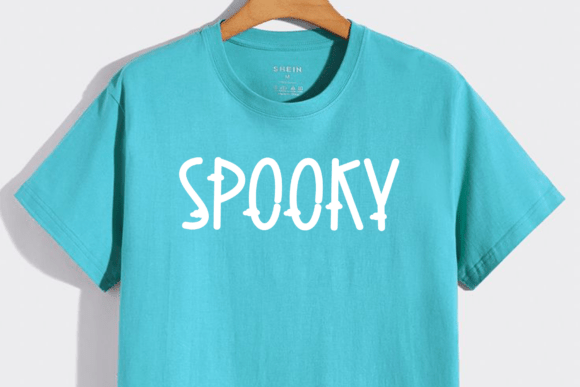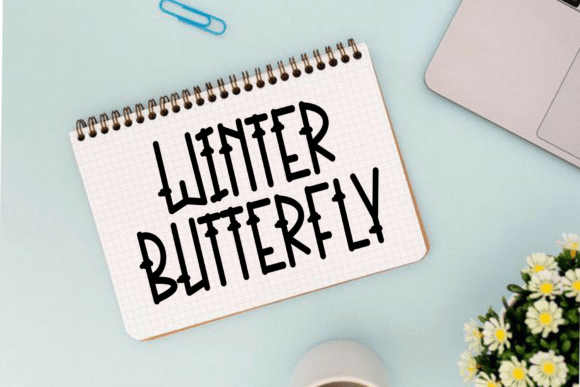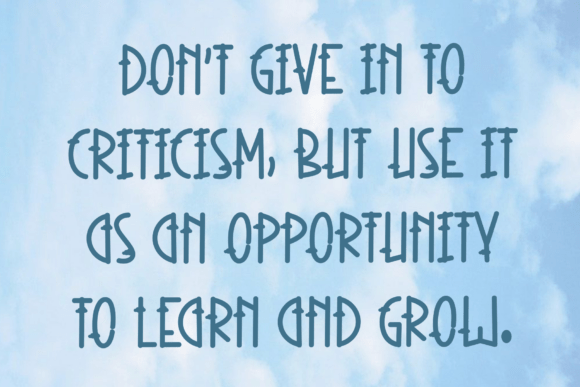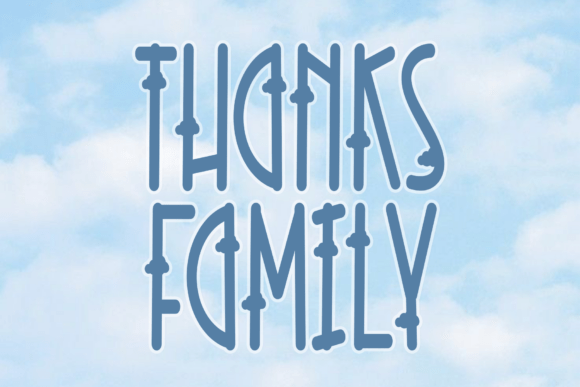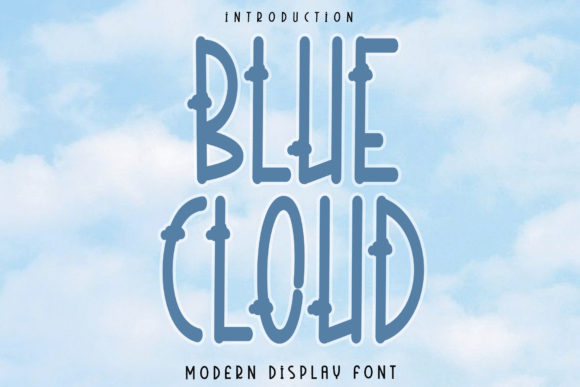
Introducing Blue Cloud Font: Elevate Your Design with a Breathtaking Typeface
In the realm of modern handwritten fonts, Blue Cloud Font emerges as a unique and professional addition, crafted to infuse designs with a sense of clarity and crisp elegance. This stunning typeface is characterized by its tall, thin strokes and a subtle, airy slant, which collectively contribute to a refined aesthetic reminiscent of a refreshing mountain breeze. Whether you’re a designer, craftsperson, or simply a connoisseur of beautiful typography, Blue Cloud Font is poised to become an indispensable part of your creative arsenal.
The Essence of Blue Cloud Font
Blue Cloud Font is more than just a typeface; it’s an experience. Its design is meticulously tailored to evoke a sense of openness and tranquility, much like the expansive sky on a clear day. This font’s clean and approachable style makes it incredibly versatile, suitable for a wide range of applications. From travel photography and outdoor gear branding to sophisticated web design, Blue Cloud Font can elevate your project with its distinctive charm.
Key Features of Blue Cloud Font
• Tall, Thin Strokes: The hallmark of Blue Cloud Font is its tall, thin strokes that lend an air of sophistication and elegance to any design.
• Subtle, Airy Slant: The subtle slant of the font adds a dynamic feel, making it more engaging and visually appealing.
• Clean and Approachable: The overall design of Blue Cloud Font strikes a perfect balance between professionalism and approachability, making it suitable for a broad spectrum of projects.
Applications of Blue Cloud Font
The versatility of Blue Cloud Font is one of its most compelling attributes. Here are some of the ideal applications for this beautiful typeface:
• Travel Photography: Blue Cloud Font perfectly complements travel photography by adding a touch of elegance and adventure to your visuals.
• Outdoor Gear Branding: For brands that specialize in outdoor gear, this font offers a clean and professional look that resonates with the target audience’s love for nature and adventure.
• Sophisticated Web Design: Blue Cloud Font can add a layer of sophistication to web design, making it ideal for websites that require a modern yet approachable feel.
Why Choose Blue Cloud Font?
In a world where typography plays a crucial role in design, Blue Cloud Font stands out for several reasons:
• Uniqueness: It offers a fresh perspective on modern handwritten fonts, making it a unique addition to any design project.
• Versatility: Its clean and elegant design makes it suitable for a myriad of applications, from digital to print.
• Elegance: Blue Cloud Font brings a level of sophistication that can elevate the aesthetic of your project, engaging your audience more effectively.
Font Name Blue Cloud Font
Author Preketek texs
Blue Cloud Font is a remarkable typeface that brings a unique blend of elegance, clarity, and freshness to the world of modern handwritten fonts. Its distinctive tall, thin strokes and subtle slant make it an excellent choice for designers and craftspersons looking to add a touch of sophistication to their projects. Whether you’re working on travel photography, outdoor gear branding, or sophisticated web design, Blue Cloud Font is an exceptional tool that can help you achieve your creative goals. Embrace the beauty and versatility of Blue Cloud Font, and discover a new dimension of typographic excellence.